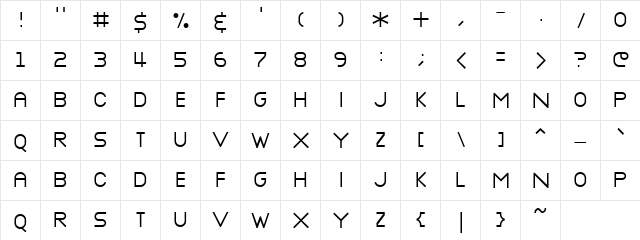
Nottke Regular
Design Context for Nottke Typeface
Nottke is a composed and adaptable typeface that performs quietly and consistently across a wide range of design contexts.
Pro Tip: Pair Nottke with a font of contrasting weight or personality to build a more expressive typographic hierarchy.